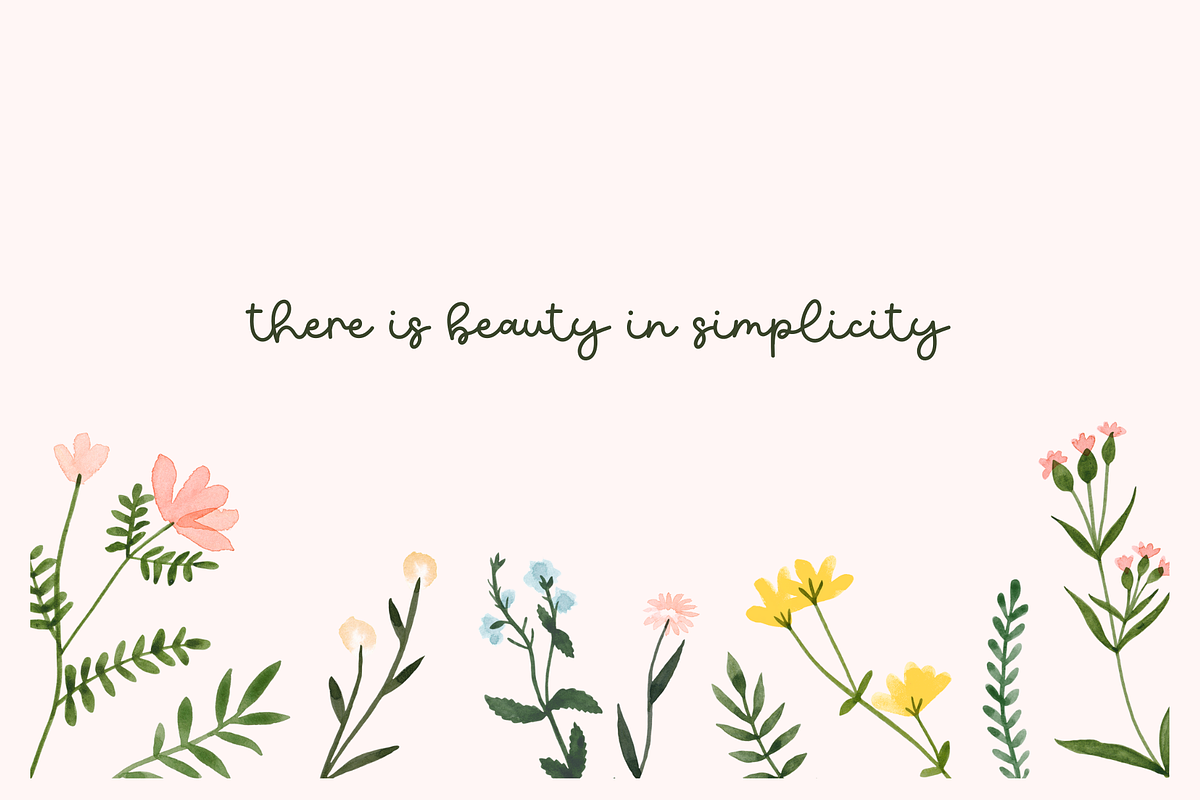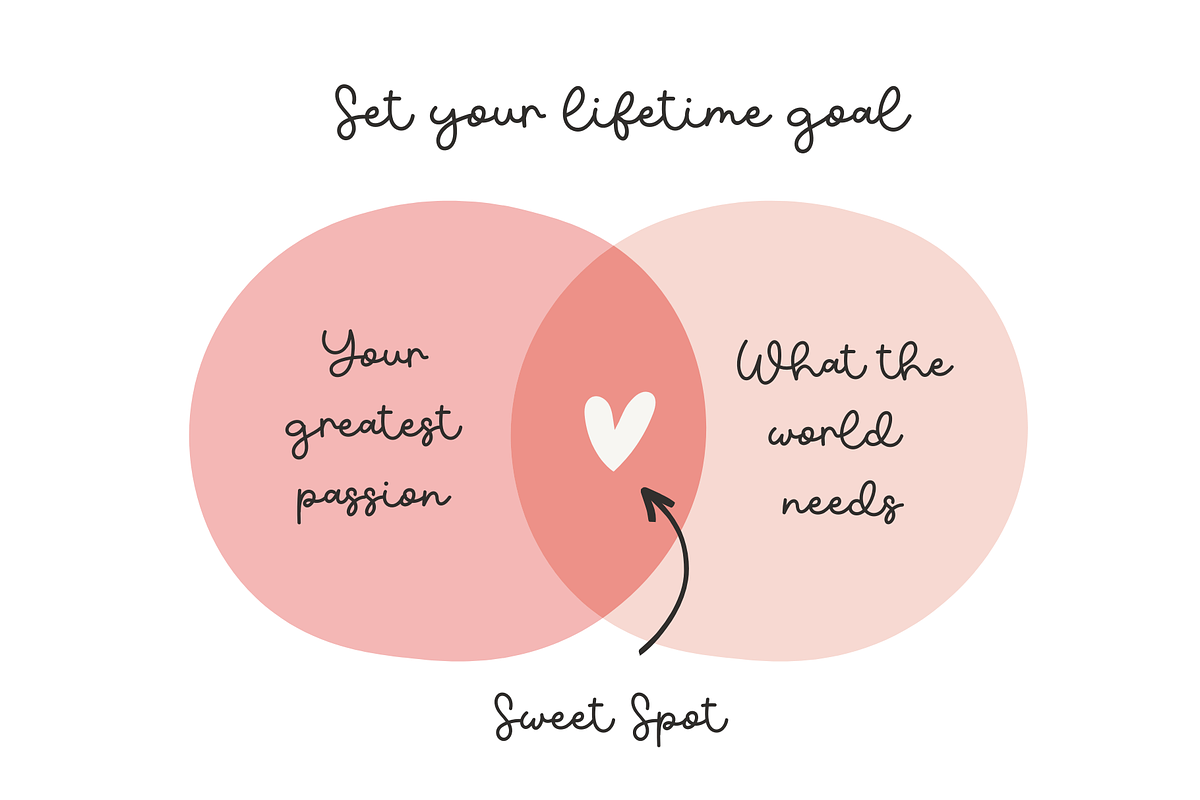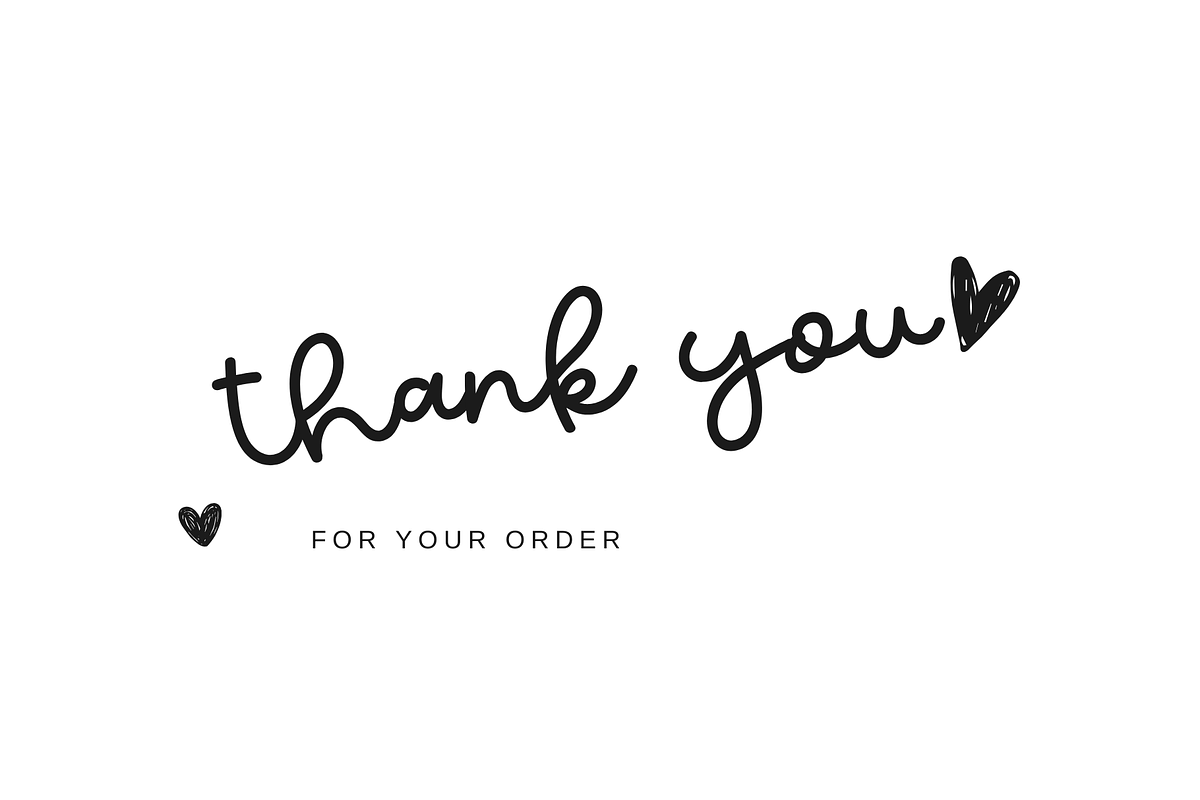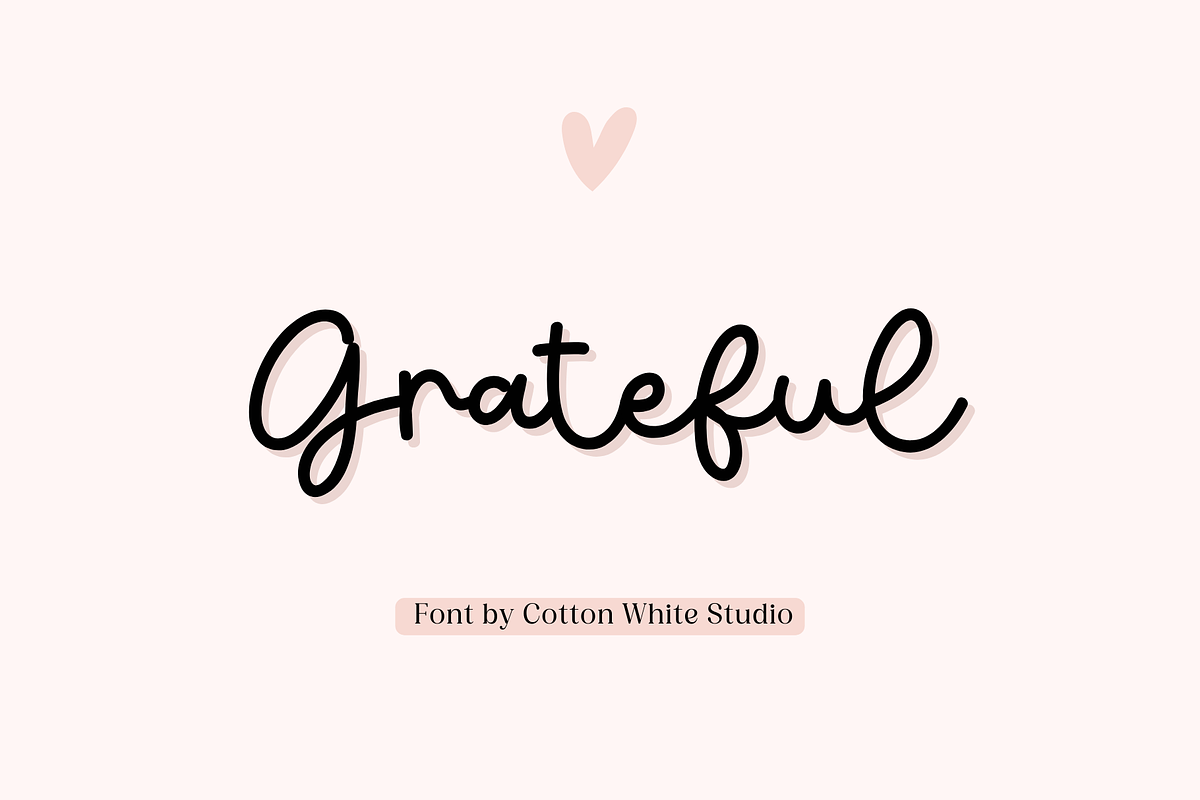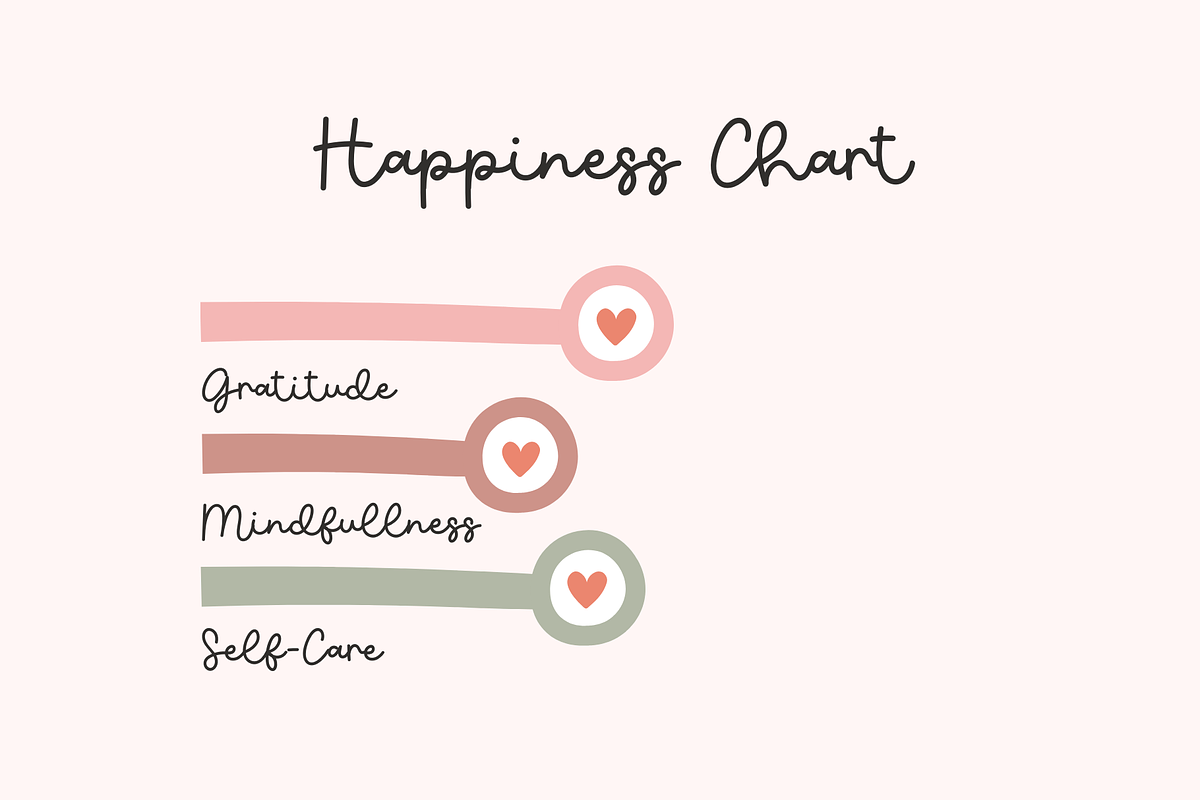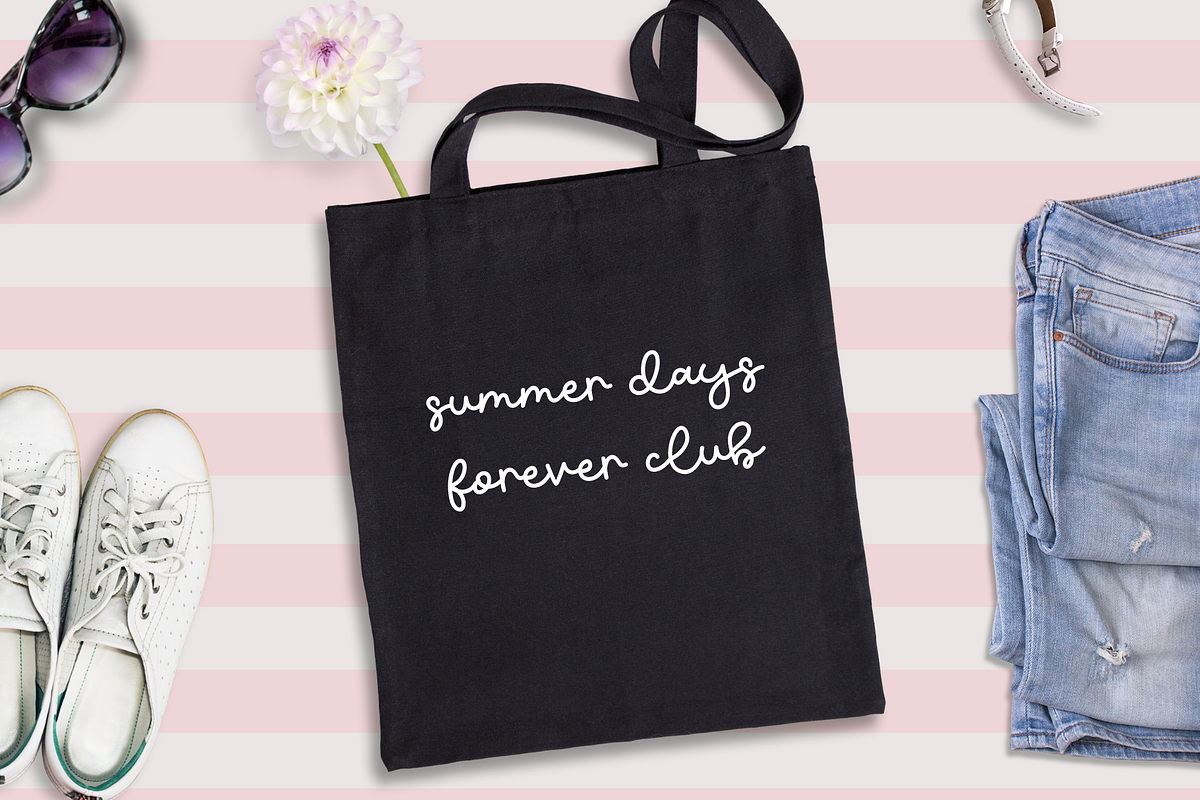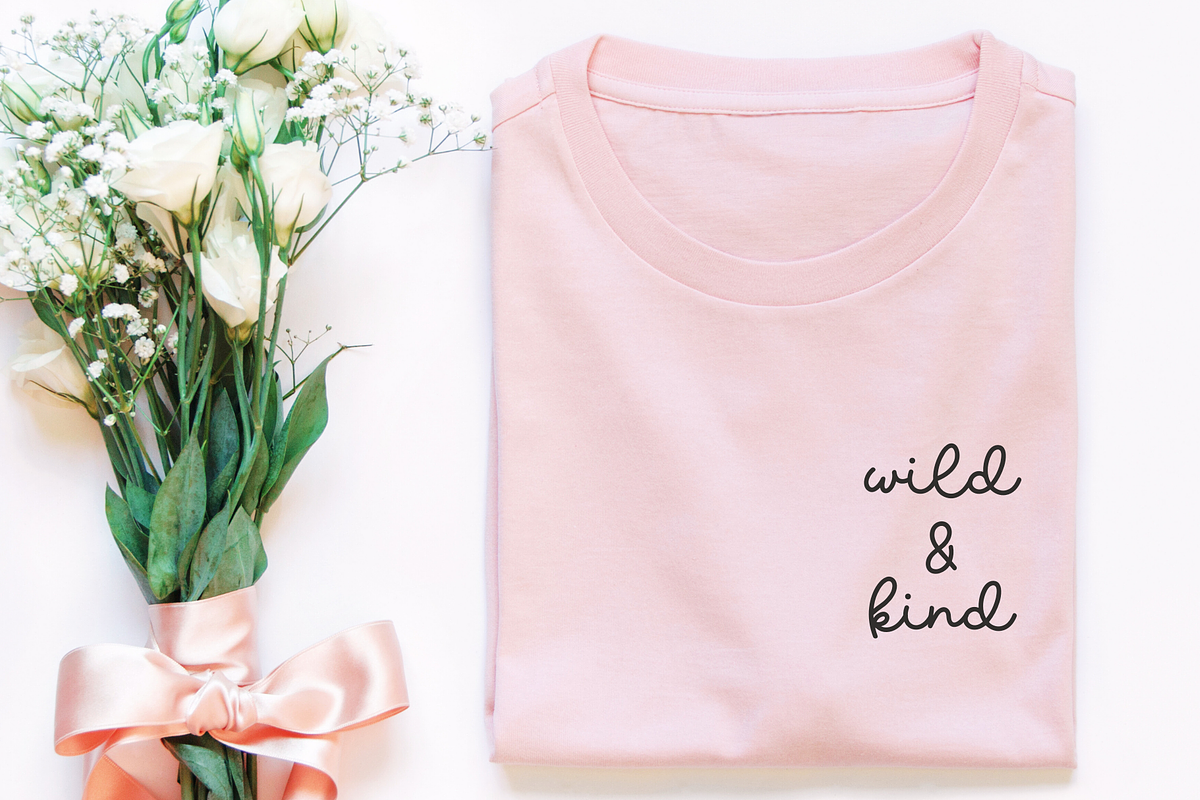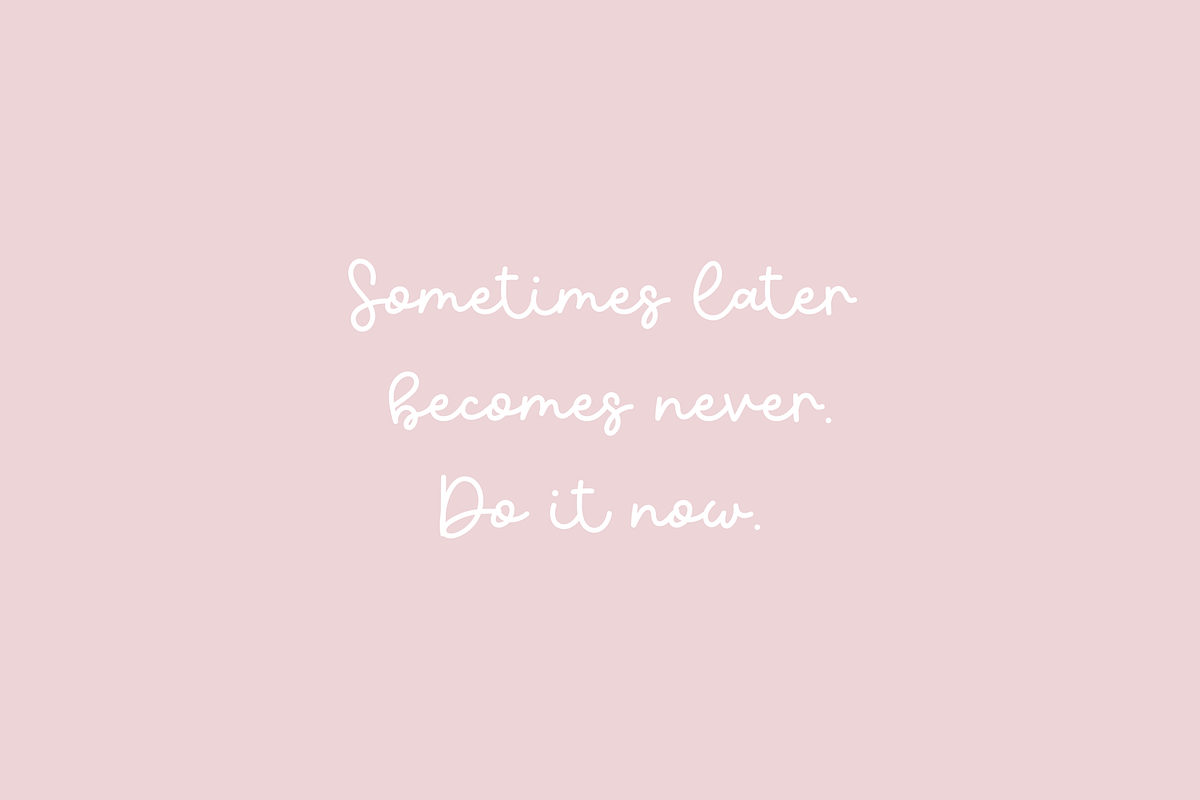
Grateful
Enhance your projects with a beautifully crafted appearance using this wonderfully scripted font! This elegant hand-drawn font will bring a distinctive flair, ideal for branding, invitations, blogs, and planners. Easily incorporate an authentic hand-lettered feel into your work!